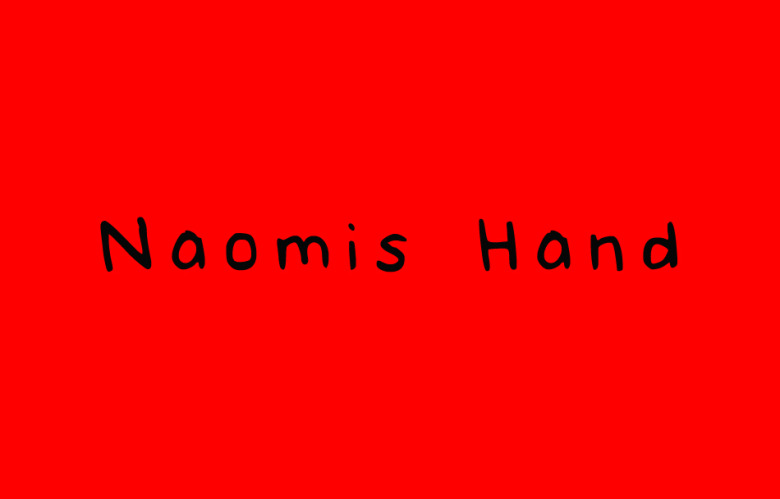
Naomis Hand Font
Naomis Hand is a high quality Handwritten font that is designed by Naomi D. and is available for free download personal & commercial use. The free version provides all uppercase and lowercase letters and a few special characters too.